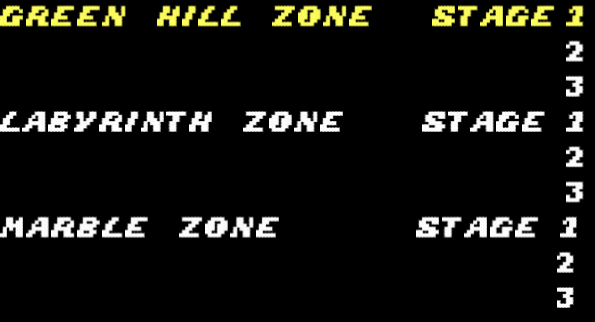
• This is a Level Select font from Sonic the Hedgehog (16 bit)
Assets taken from: Sonic 1 (1991), Sonic 1 RUS (By NewGame and CoolSpot), Sonic 1 (Mobile/Origins Remaster)
Это шрифт Level Select из Sonic the Hedgehog (16 бит)
Ассеты взяты из: Sonic 1 (1991), Sonic 1 RUS (От NewGame и КулСпот), Sonic 1 (Ремастер Mobile/Origins)